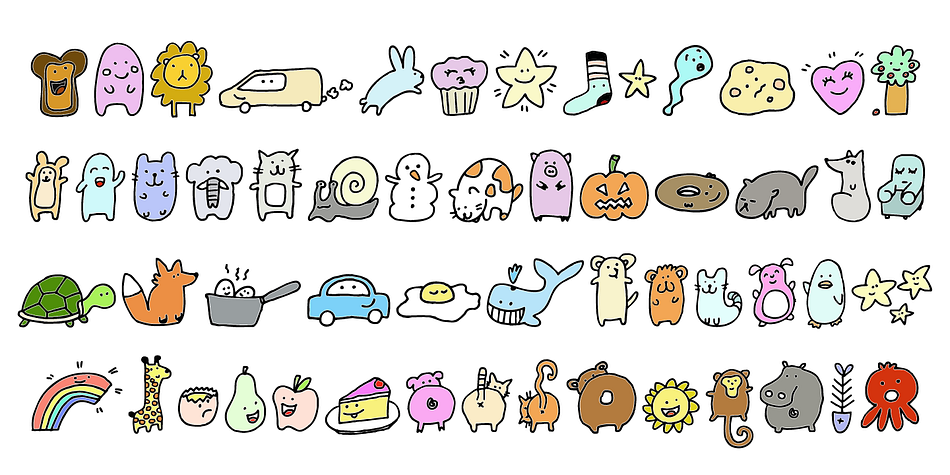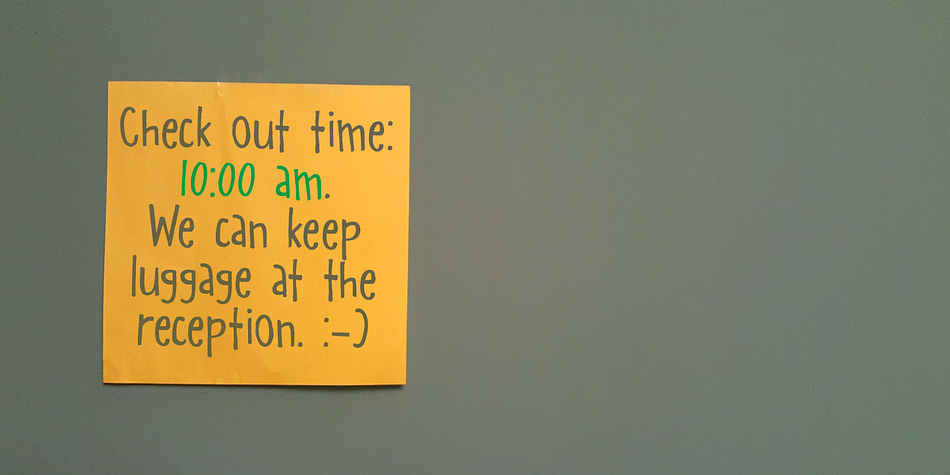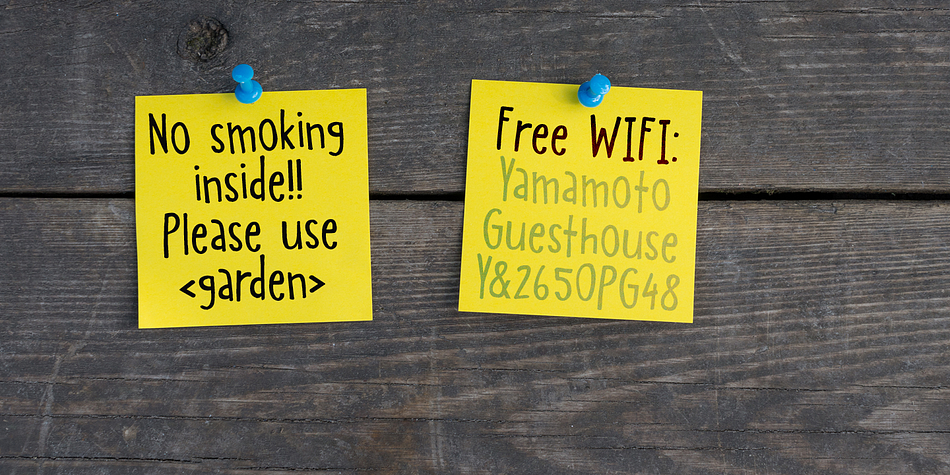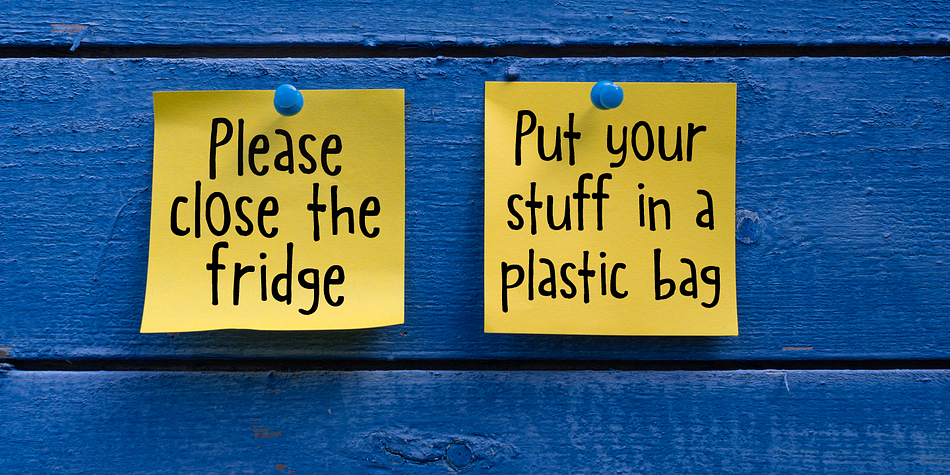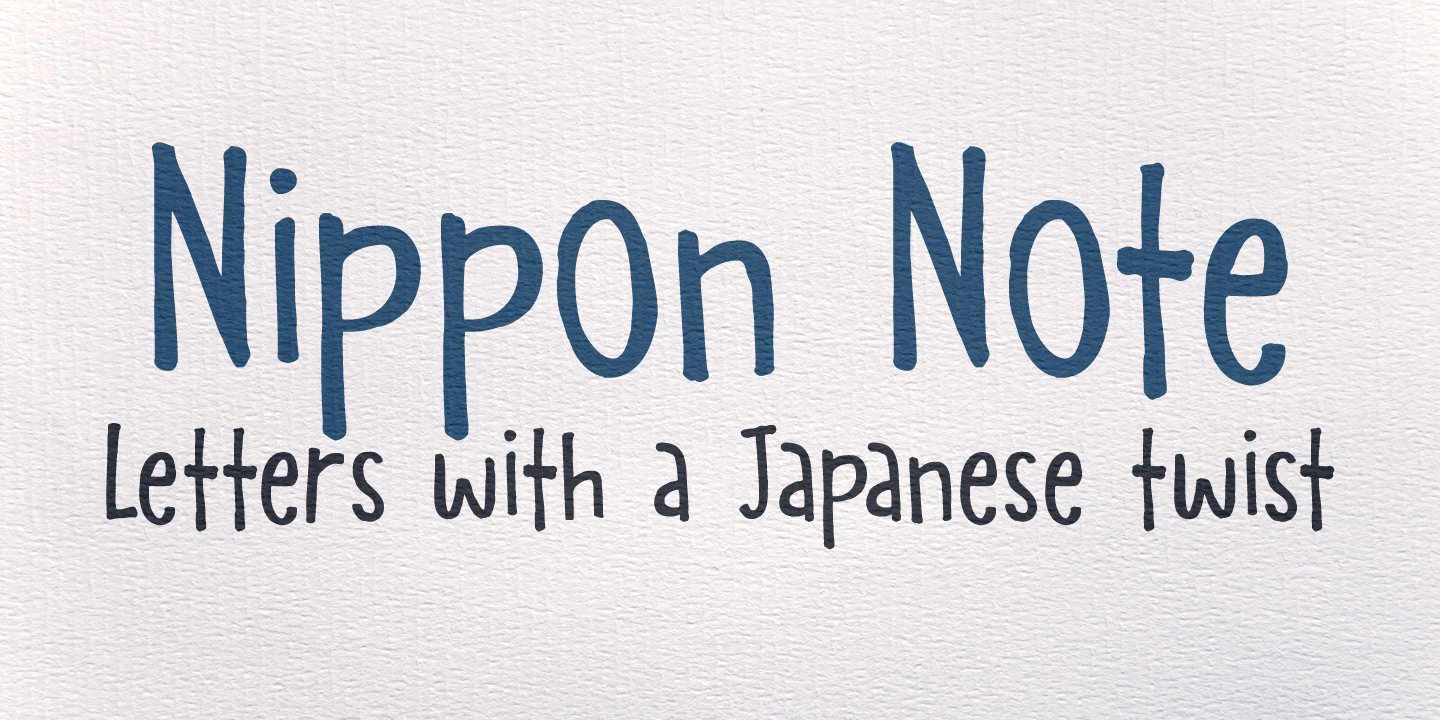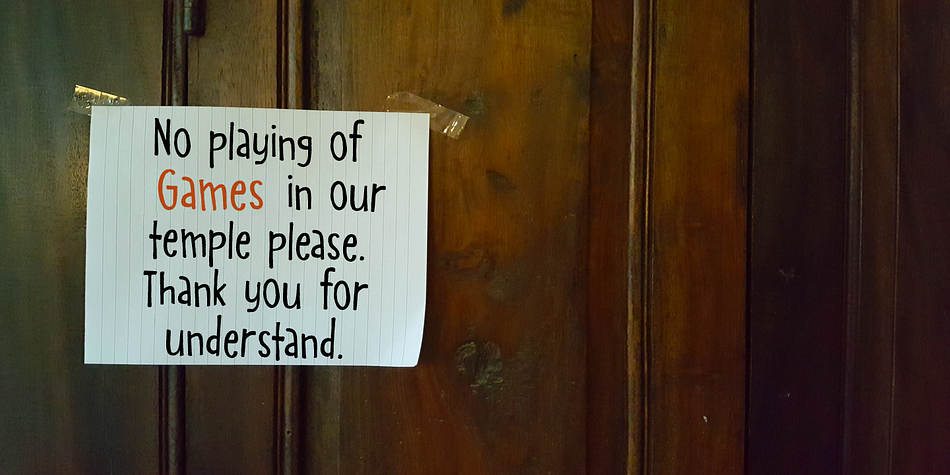
Nippon Note is a dingbat and hand drawn font family. This typeface has three styles and was published by Hanoded.
I just returned from a short holiday in Japan. I stayed in hostels and small guesthouses and noticed a peculiar thing they all had in common: they love little notes, telling you where to go, what to do, how to use the microwave oven and when to check out. These notes were sometimes printed, but more often they were handwritten. I found that the Japanese way of writing roman characters is a little, well, unusual. The letters are correct, but they have that typical ‘Japanese look’ - most notably the a and A the b, d and g, the p and P and the t and T. I can’t really tell you what makes them look different, maybe it’s the proportions, but I do know that a Nippon Note is highly recognisable.
So, here is Nippon Note, a highly recognisable, handmade font. You don’t really have to be in Japan to use it, but it will give your designs that extra cachet. And don’t forget Nippon Note Kawaii - the cute doodle font which is free if you download the Nippon Note family!